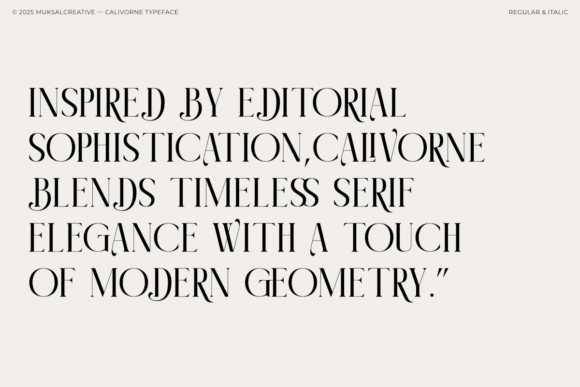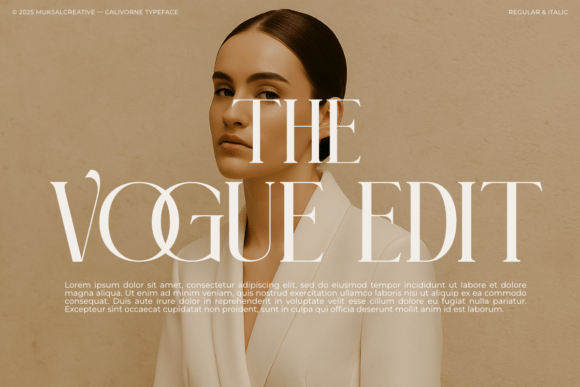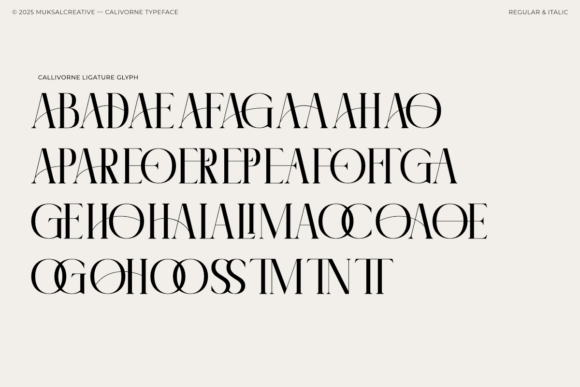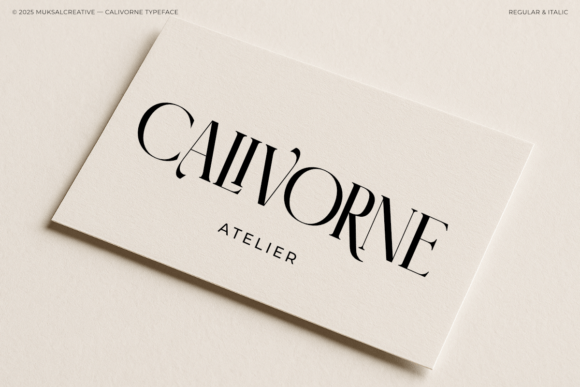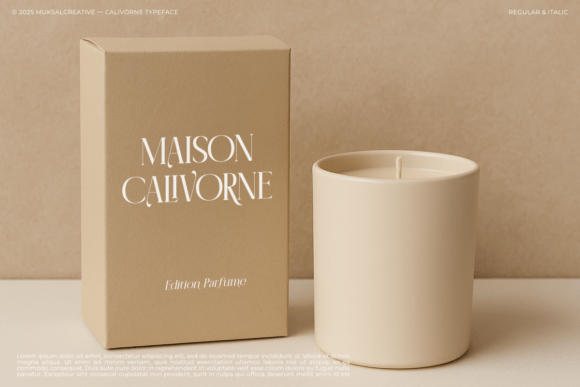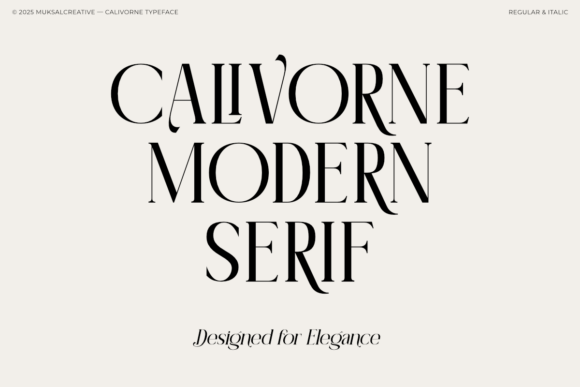
Introducing Calivorne Font: Timeless Elegance for Modern Design
In the world of typography, few fonts manage to strike a balance between classic sophistication and modern elegance. Calivorne Font is one such typeface that effortlessly blends refined luxury with contemporary flair, making it an ideal choice for designers and crafters seeking to elevate their visual projects. With its graceful curves, high contrast strokes, and balanced proportions, Calivorne brings a sense of editorial beauty and luxury to any design, whether it’s fashion branding, magazine layouts, packaging, or refined logo design.
The Design Philosophy Behind Calivorne
Calivorne is more than just a font; it’s a design statement. Its creation was inspired by the need for a typeface that could convey elegance, sophistication, and a touch of classic refinement. The result is a serif typeface that exudes timelessness, making it perfect for projects that require a sense of enduring luxury. The design philosophy behind Calivorne focuses on achieving a delicate balance between form and function, ensuring that each letterform is not only aesthetically pleasing but also highly legible.
Key Features of Calivorne Font
Calivorne Font comes with a range of features that make it versatile and highly adaptable for various design applications. Some of its key features include:
- Two Elegant Styles: Calivorne offers two distinct styles — Regular and Italic. This range provides designers with the flexibility to use the font for both display and body text compositions, ensuring that their designs maintain a cohesive and sophisticated look.
- Ligatures and Alternate Characters: To add a unique personality and fluidity to typography work, Calivorne includes a collection of ligatures and alternate characters. These features allow designers to customize their text, creating a more personalized and engaging visual experience.
- High Contrast Strokes: The high contrast strokes in Calivorne contribute to its elegant appearance, making it stand out in fashion branding, magazine layouts, and other high-end design projects.
- Balanced Proportions: The font’s balanced proportions ensure that it remains legible even at smaller sizes, making it suitable for body text as well as headlines.
Applications of Calivorne Font
Given its elegant design and versatile features, Calivorne Font is suitable for a wide range of applications, including:
- Fashion Branding: Calivorne’s luxurious feel makes it an excellent choice for fashion brands looking to convey sophistication and elegance.
- Magazine Layouts: The font’s readability and aesthetic appeal make it perfect for editorial projects, enhancing the overall reading experience.
- Packaging: For product packaging that requires a touch of luxury, Calivorne provides an elegant solution.
- Refined Logo Design: The unique letterforms and alternate characters in Calivorne make it an excellent choice for crafting distinctive and memorable logos.
Why Choose Calivorne Font?
In a market saturated with trendy fonts, Calivorne stands out for its timeless elegance and versatility. Here are a few reasons why designers and crafters should consider Calivorne for their projects:
- Enduring Elegance: Unlike fonts that may quickly go out of style, Calivorne’s classic design ensures that it remains relevant for years to come.
- Flexibility: With its two styles and range of ligatures and alternate characters, Calivorne offers the flexibility needed for a wide range of design projects.
- Quality and Craftsmanship: The attention to detail in Calivorne’s design reflects a high level of craftsmanship, making it a valuable asset for any designer looking to elevate their work.
Whether you’re crafting a minimal brand identity or a high-end editorial title, Calivorne Font delivers a level of sophistication and elegance that is hard to match. Its combination of classic refinement and modern sophistication makes it an invaluable tool for designers and crafters seeking to create visually stunning and impactful designs.
In conclusion, Calivorne Font is a versatile and elegant typeface that brings a sense of luxury and editorial beauty to any visual project. Its timeless design, combined with its range of features and applications, makes it an excellent choice for designers looking to create enduring and sophisticated designs.
| Font Name | Calivorne Font |
| Author | Muksal Creative |